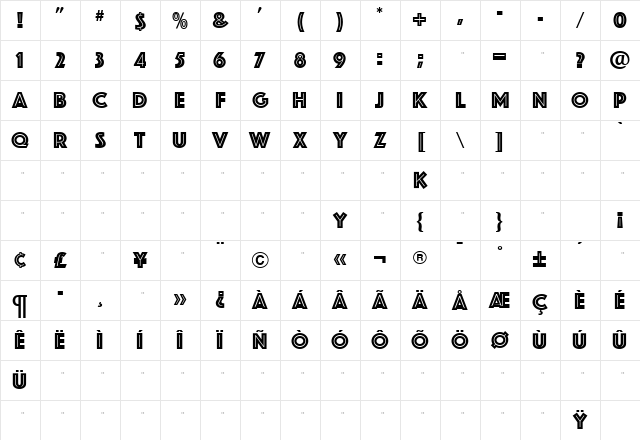
PhosphateInline Roman
Design Context for PhosphateInline
PhosphateInline is built around its visual character rather than neutral utility - its distinctive forms are designed to make an impression at display sizes.
Font Pairing: Pair with a clean neutral sans-serif for body copy to let PhosphateInline's character lead without overwhelming the composition.
Pro Tip: Use PhosphateInline exclusively at display sizes - it was designed to be seen, not read at length. Let a neutral companion handle body copy.